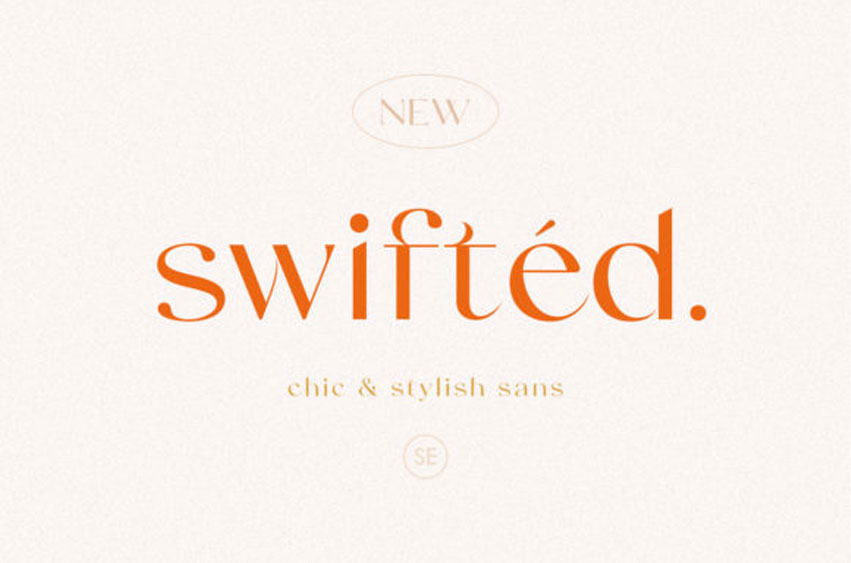
Swifted Font
Swifted Font is a modern and stylish sans serif font.
Simple but with a strong visual effect, this font will instantly make your creation more appealing than any others.